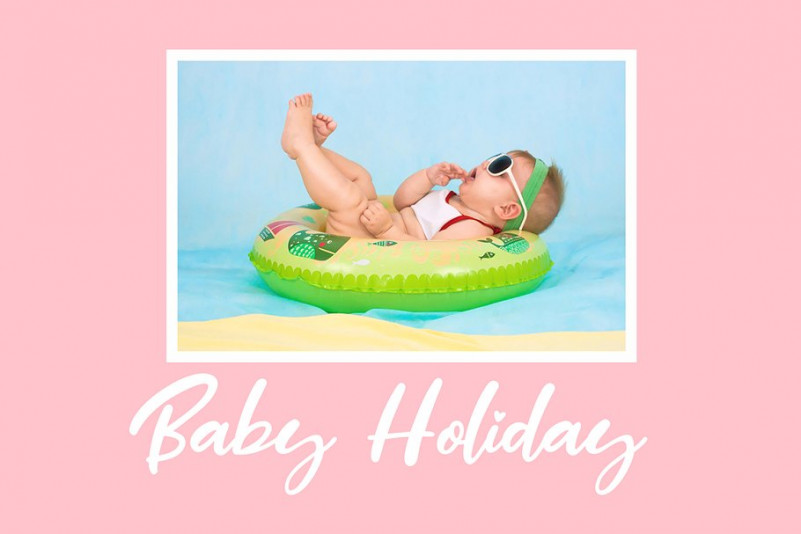
Mother Day Script Font
Mother Day Script Demo Font
This is modern calligraphy typeface. Font is classified as a type of font that is smooth, thick, feminine, sensual, clean, glamorous, simple and very charming to look at. Introducing Mother Day Font. It’s designed and shared by khurasan. Mother Day font a modern script typeface with cheerful theme for your fun project. Mother Day display font is very suitable to be applied in various formal forms such as invitations, labels, restaurant menus, logos, fashion, makeup, stationery, novels, magazines, books, pride greeting cards as well as weddings, packaging, labels and also suitable for all forms of advertising .